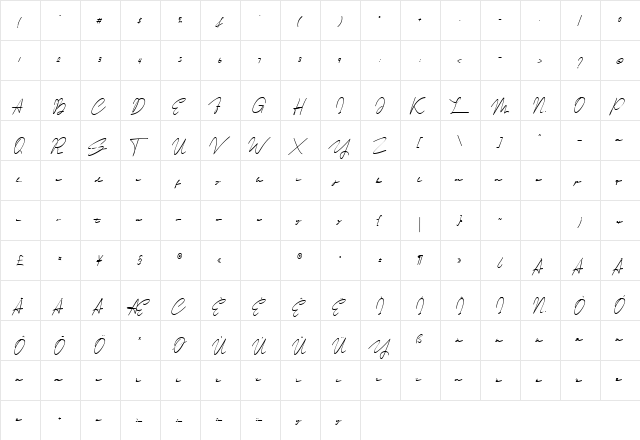
Cristhyna Signature Regular
| Foundry | Namara Creative Studio |
| Designer | Eep Apringga | Namara Creative Studio |
Design Context for Cristhyna Signature Typeface
Cristhyna Signature is a composed and adaptable typeface that performs quietly and consistently across a wide range of design contexts.